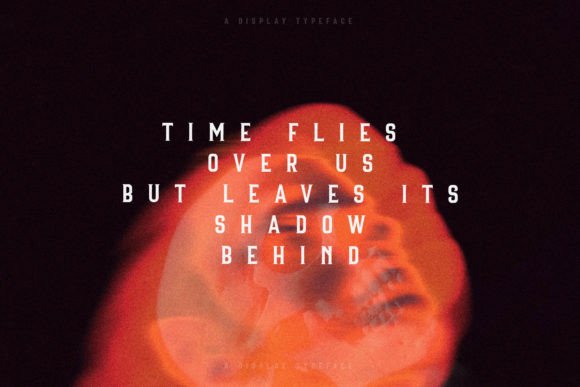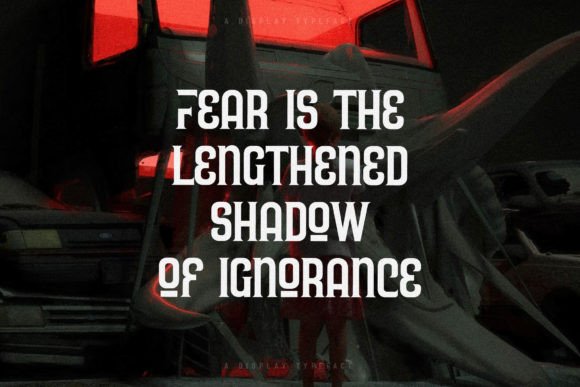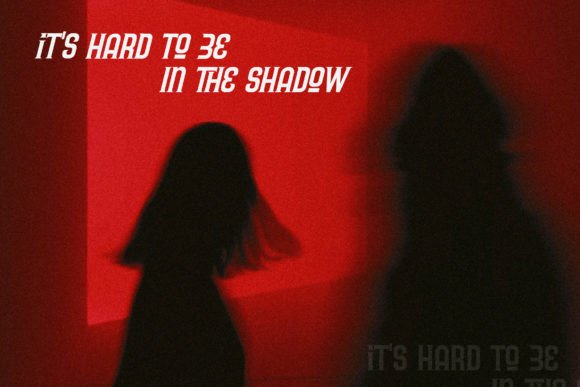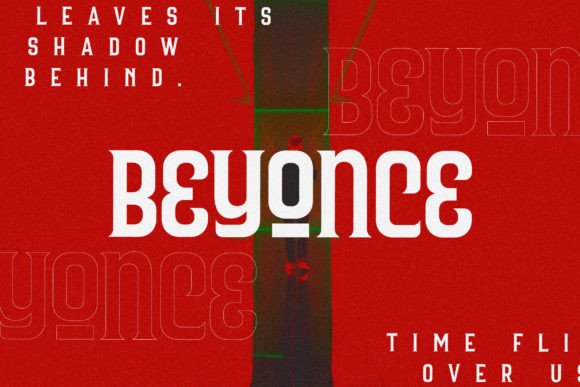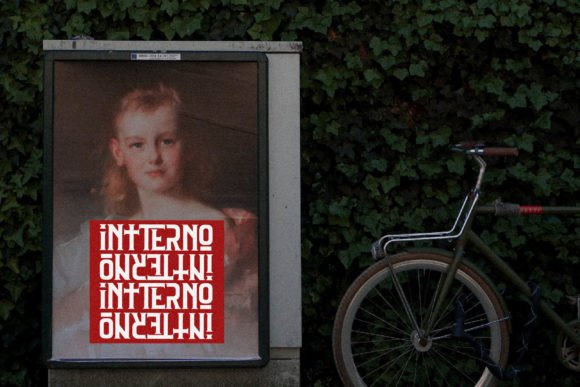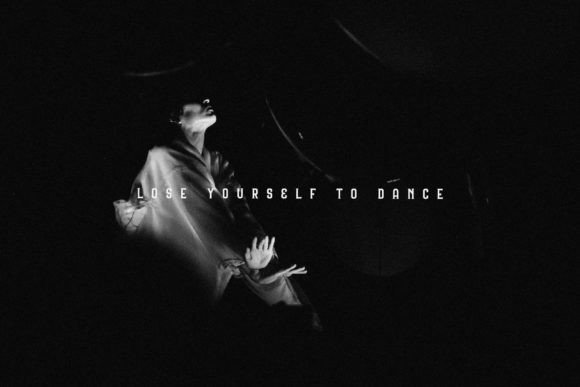
The Enigmatic Allure of Intterno Font
Have you ever stumbled upon an old, mysterious book in a dusty library, its pages whispering secrets to the wind? The moment you opened it, a sense of awe washed over you, and you were transported to a world of wonder. That’s the kind of dramatic touch you can add to your projects with the Intterno Font.
This unique display font has a mesmerizing look that’s perfect for designers who want to make a statement. With its PUA encoding, you can easily access all the glyphs and ligatures, giving you endless possibilities to experiment with. Whether you’re working on a film poster, a book cover, or a website, Intterno Font is the perfect addition to elevate your design game.
Intterno Font Key Features
- Size and Resolution: The font has a medium x-height and is designed for use at 10-24 points, with optimal readability at 12-14 points.
- Unique Characteristics: Intterno Font features a unique blend of modern and traditional design elements, with subtle flair and a touch of elegance.
- Font Weight and Style: Intterno Font is available in regular, bold, italic, and bold-italic styles.
- Scalability: The font is designed to be highly scalable, making it suitable for use in a wide range of applications, from small text to large display headings.
Intterno Font Review
As a designer, I was excited to dive into the world of Intterno Font, and here’s my honest take on this font.
- Unique Design: Intterno Font brings a fresh, modern aesthetic to the table, making it perfect for those looking to add some personality to their designs.
- Readability: The font is surprisingly easy to read, even at smaller font sizes, making it a great choice for body text or smaller headlines.
- Flexibility: Intterno Font comes in a range of weights, from light to bold, giving designers plenty of options to experiment with.
- Legibility at Large Sizes: While Intterno Font is readable at smaller sizes, it can appear a bit messy and distorted when used at larger font sizes.
- Limited Character Set: The font’s character set is somewhat limited, which may not be ideal for designers working with languages that require a wider range of characters.
While Intterno Font has its limitations, it’s still a great choice for designers looking for a unique and modern font. With a bit of creative experimentation, you can overcome its limitations and create some truly stunning designs. Overall, I’d give Intterno Font 4 out of 5 stars – it’s a solid addition to any designer’s toolkit.
Getting the Most Out of Intterno Font
For best results, pair Intterno Font with high-quality images and bold graphics. Use it for headings, titles, and other prominent text elements to create visual impact.
Intterno Font is ideal for:
- Designing modern and minimalist posters
- Creating eye-catching headings for websites and social media
- Adding a touch of sophistication to business cards and brochures
Alternatives to Intterno Font
Montserrat is a popular sans-serif font designed by Julieta Ulanovsky. It is best used for titles, headings, and body text in digital products and publications. Montserrat is more geometric and modern compared to Intterno Font, making it ideal for modern designs. It is also more versatile and has a wider range of font sizes and weights.
Open Sans is a clean and modern sans-serif font designed by Steve Matteson. It is best used for body text and is highly legible on digital screens. Open Sans is more condensed and has a larger x-height compared to Intterno Font, making it ideal for long blocks of text. It is also highly customizable and has a wide range of font sizes and weights.
Lato is a modern sans-serif font designed by Łukasz Dziedzic. It is best used for titles, headings, and body text in digital products and publications. Lato is more elegant and refined compared to Intterno Font, making it ideal for luxury and high-end designs. It also has a wide range of font sizes and weights, making it highly customizable.